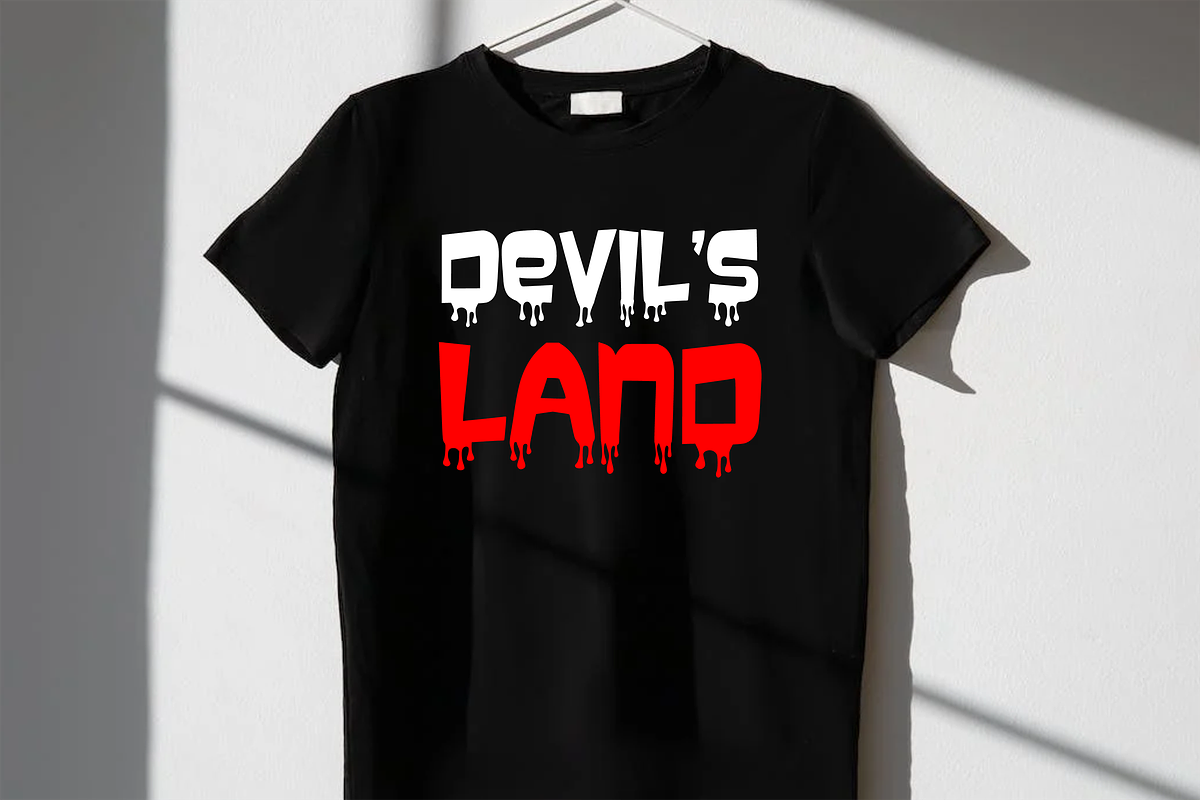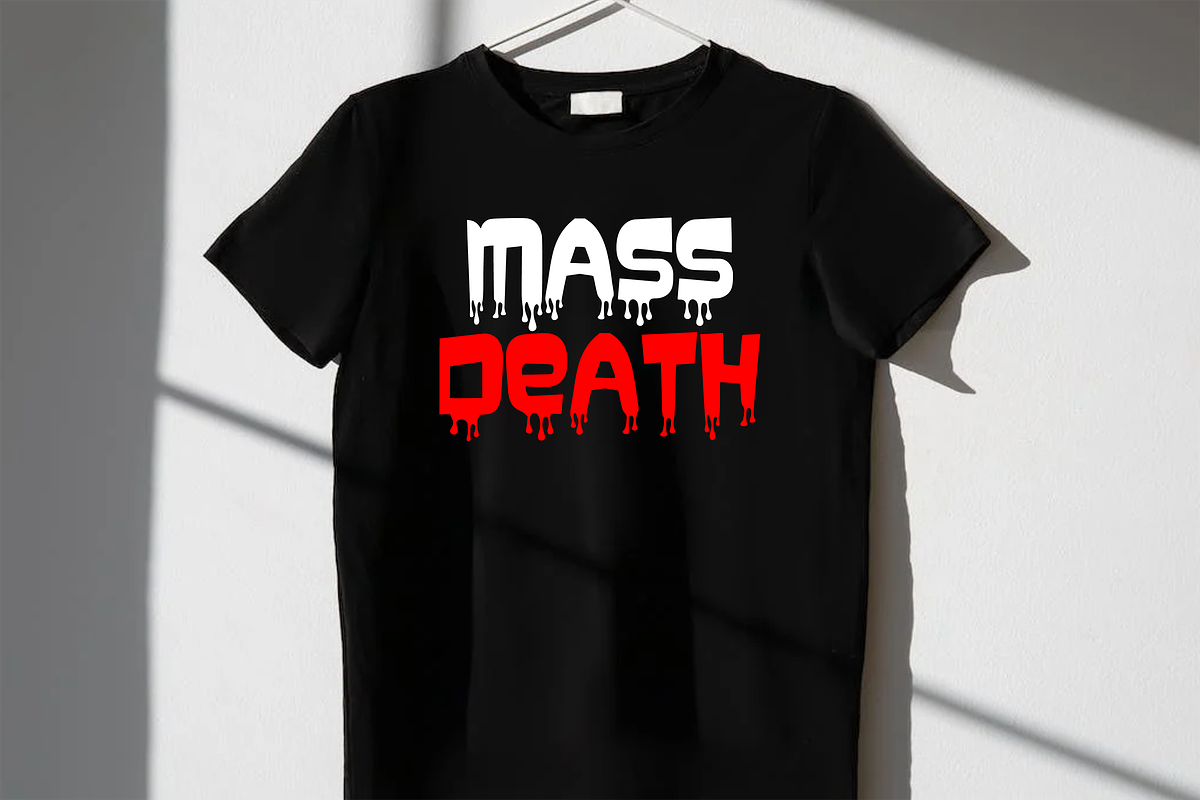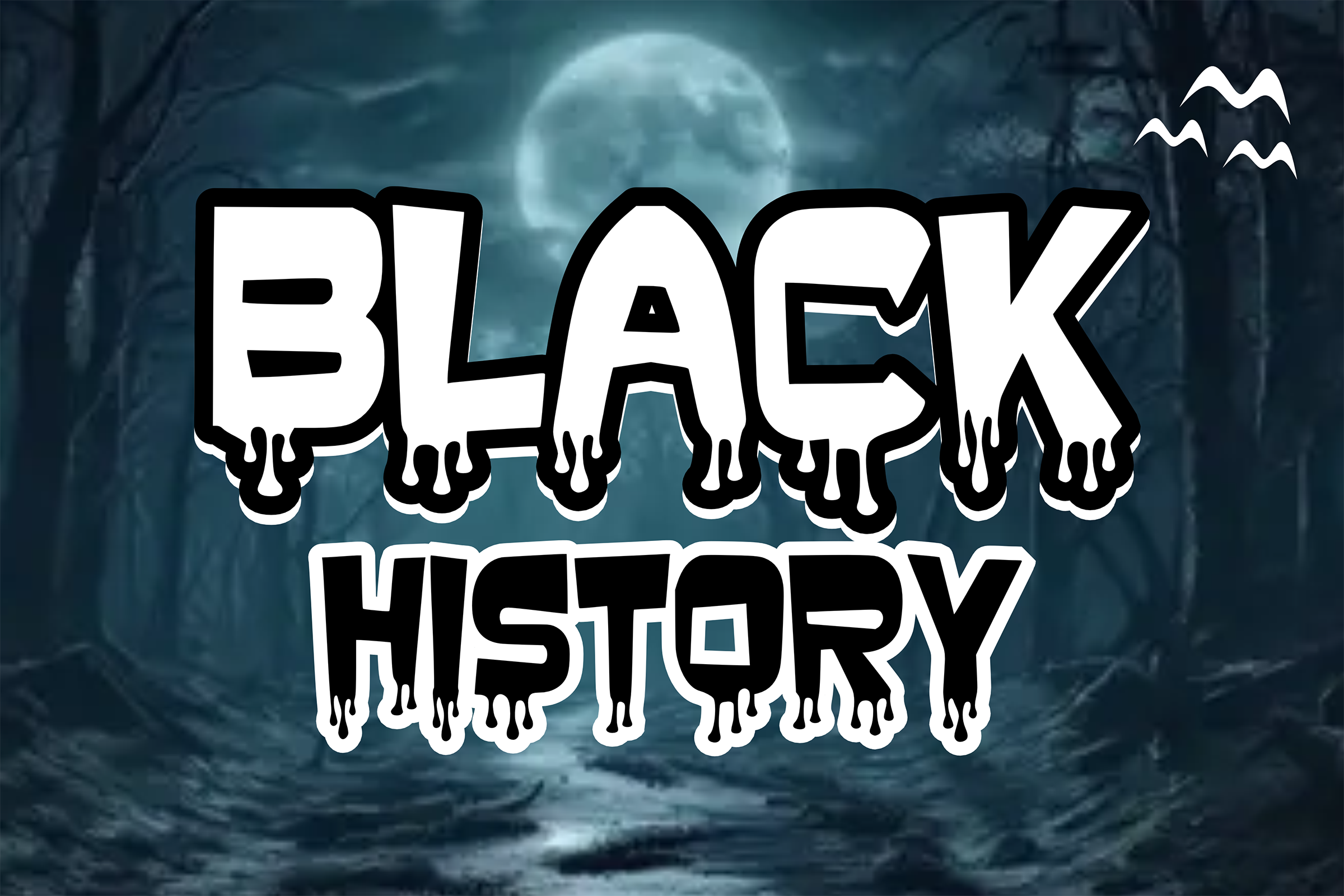
Black History - Horror Font Types
Black History is a spooky and wild decorative font with a creepy look. With a dripping style, this font will bring a Horror feel to any project, such as t-shirt screen printing, comics, posters, magazines, movies, etc. Let this font give you satisfying results.